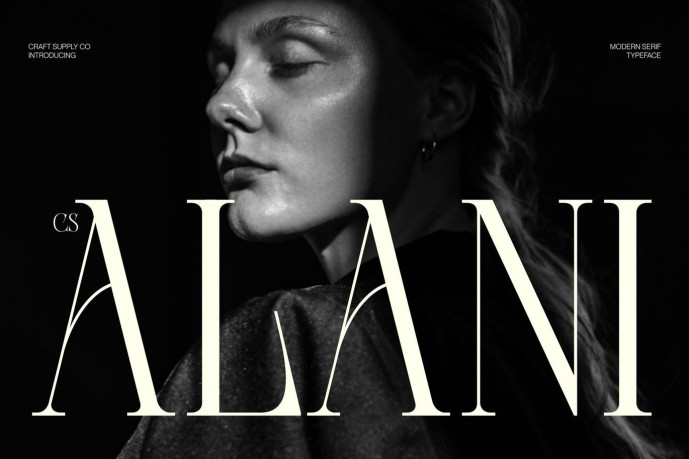
Alani – Modern Serif Font
CS Alani – Modern Serif Font: Where Slim Elegance Meets Contemporary Sophistication Sharp Angles with Graceful Proportions This is a modern serif font featuring sharp angles, slim proportions, and elongated serifs that create a sophisticated and contemporary visual identity. Its refined letterforms combine precision with elegance, resulting in typography that feels graceful, professional, and effortlessly luxurious. Every character is carefully crafted to deliver a polished appearance with exceptional visual balance.
Contemporary Style with Timeless Appeal This font offers a modern interpretation of classic serif typography. Its slender proportions enhance its refined character, while the elongated serifs add a sense of sophistication and distinction. This harmonious combination creates a timeless aesthetic that feels equally at home in editorial layouts and premium branding.
Elegant Expression with Professional Confidence This font communicates elegance through its minimalist yet expressive design. The sharp angles provide clarity and definition, while its slim silhouette conveys refinement and exclusivity. Whether used for striking headlines or sophisticated branding, the font maintains excellent readability while elevating the overall visual experience with a luxurious touch.
Perfect for Luxury and High-End Design Perfect for luxury brand identities, fashion and beauty branding, magazine editorials, premium packaging, hotel and hospitality branding, invitations, product labels, logos, advertising campaigns, and other high-end design projects. Its elegant serif forms make it ideal for typography that seeks to communicate prestige, professionalism, and timeless sophistication.
Uppercase and lowercase characters